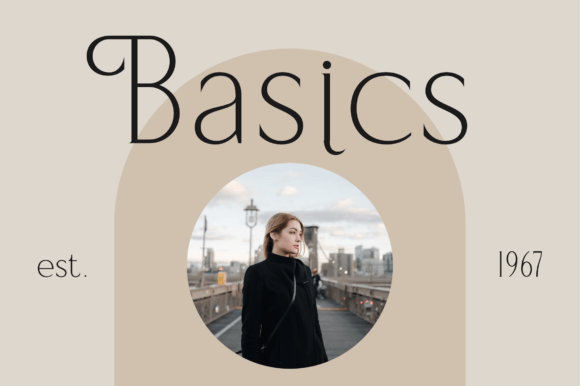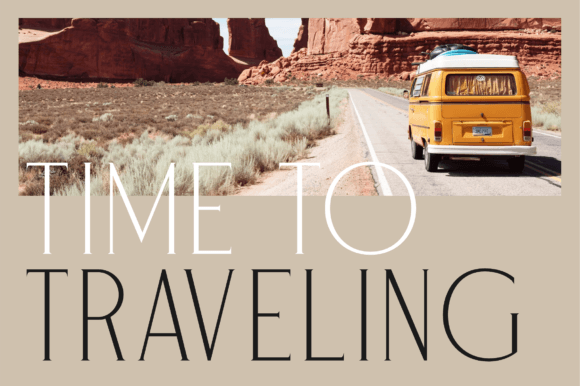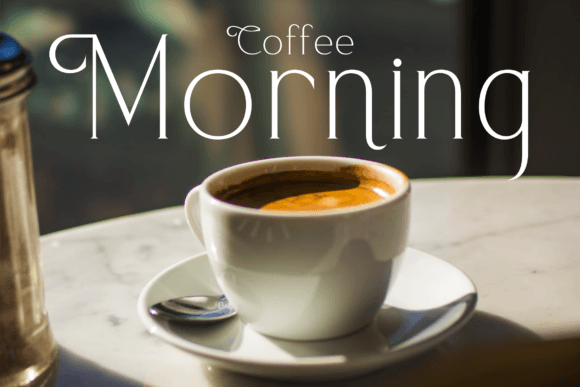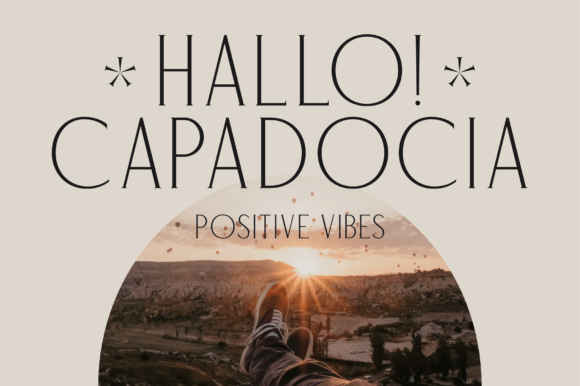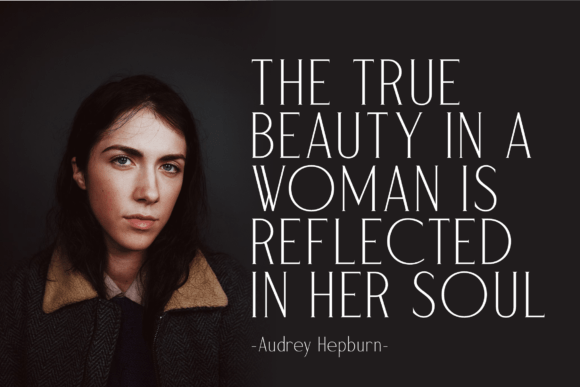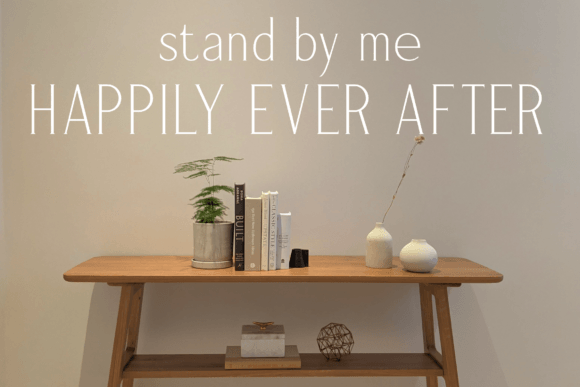
Introduction to Quilezy Font
Quilezy is a modern and classic serif font that has its own unique style & modern look.
This typeface is perfect for an elegant & luxurious logo, book or movie title design, fashion brand, magazine, clothes, lettering, quotes, and so much more .
Key Features of Quilezy Font